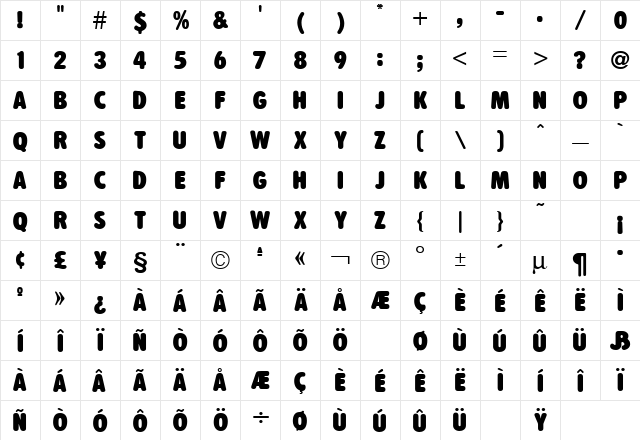
T.H. Alphabet Soup Regular
Design Context for T.H. Alphabet Soup
T.H. Alphabet Soup is a composed and adaptable typeface that performs quietly and consistently across a wide range of design contexts.
Pro Tip: Use T.H. Alphabet Soup in both headline and body roles to test its range before committing to a single application.